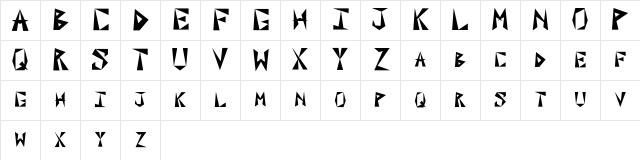
Paxil Initials Regular
Design Context for Paxil Initials
Paxil Initials is a composed and adaptable typeface that performs quietly and consistently across a wide range of design contexts.